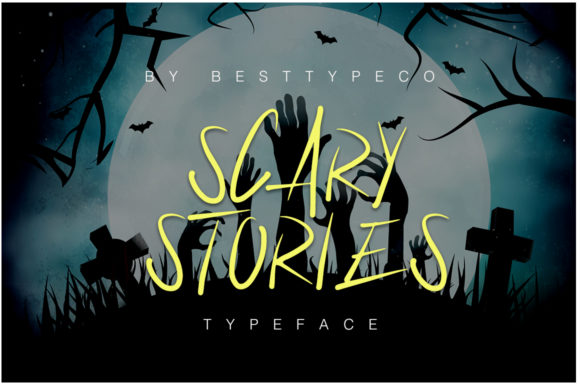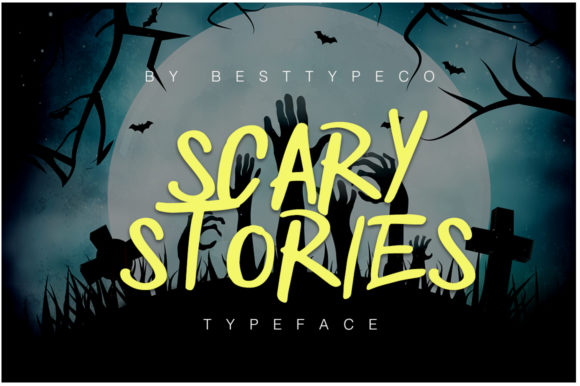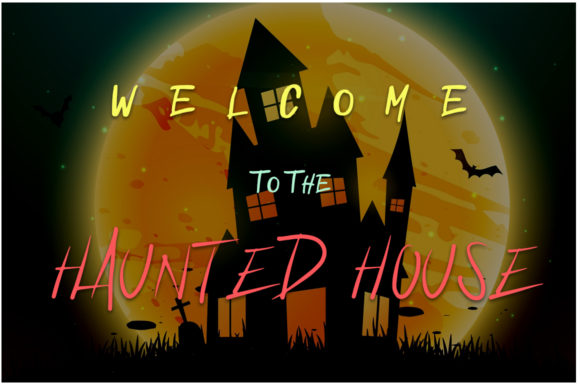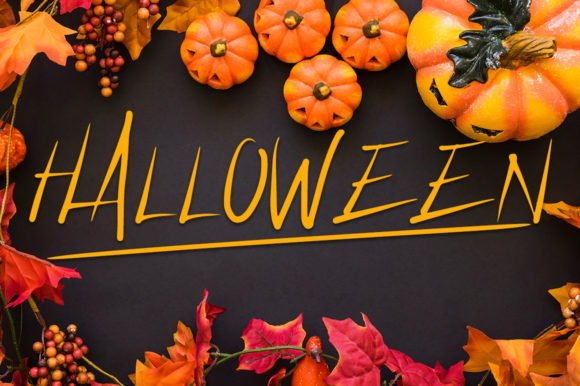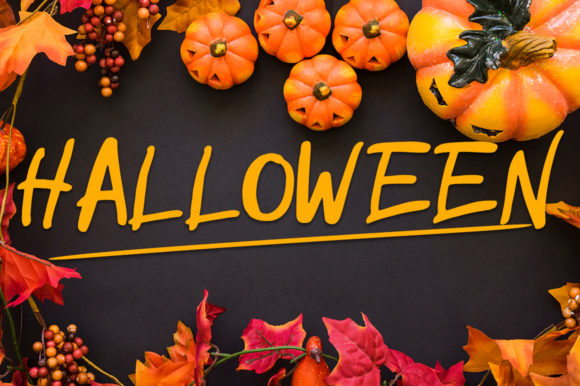
Scary Stories Font
About Scary Stories Font
Scary Stories is a unique and interesting handwritten font. Spooky and gloomy, this font will make each of your Halloween designs stand out!